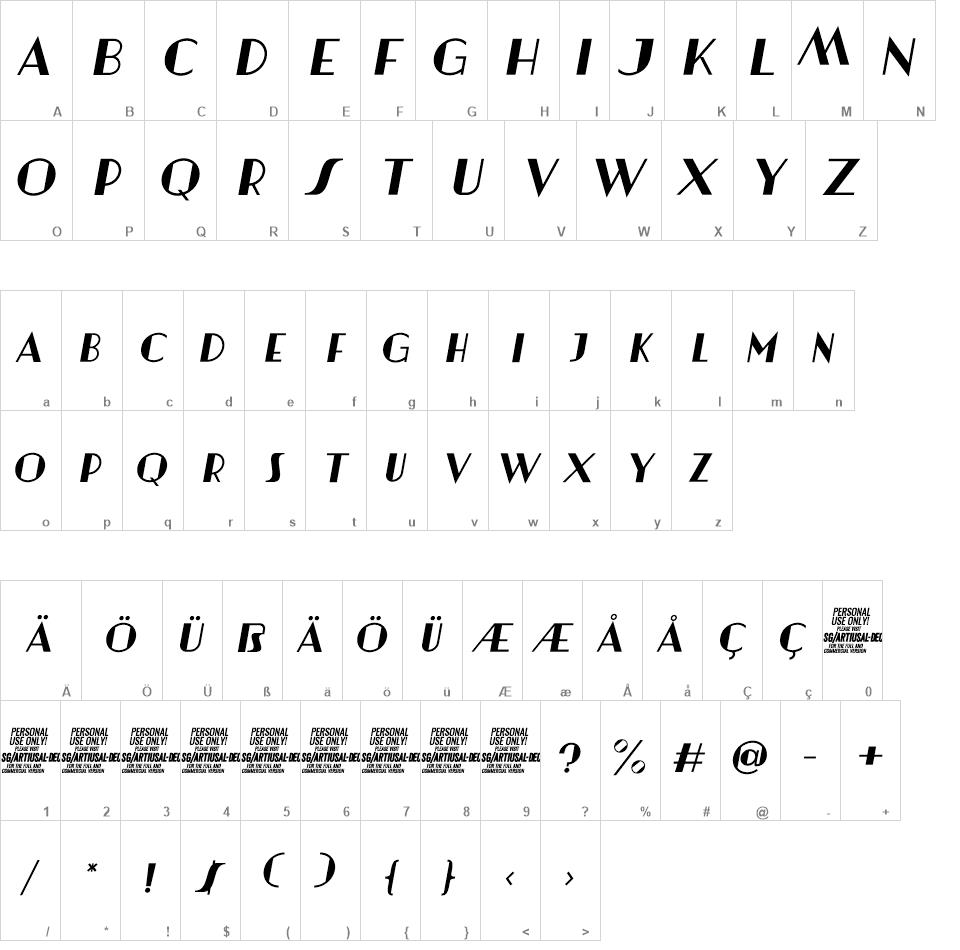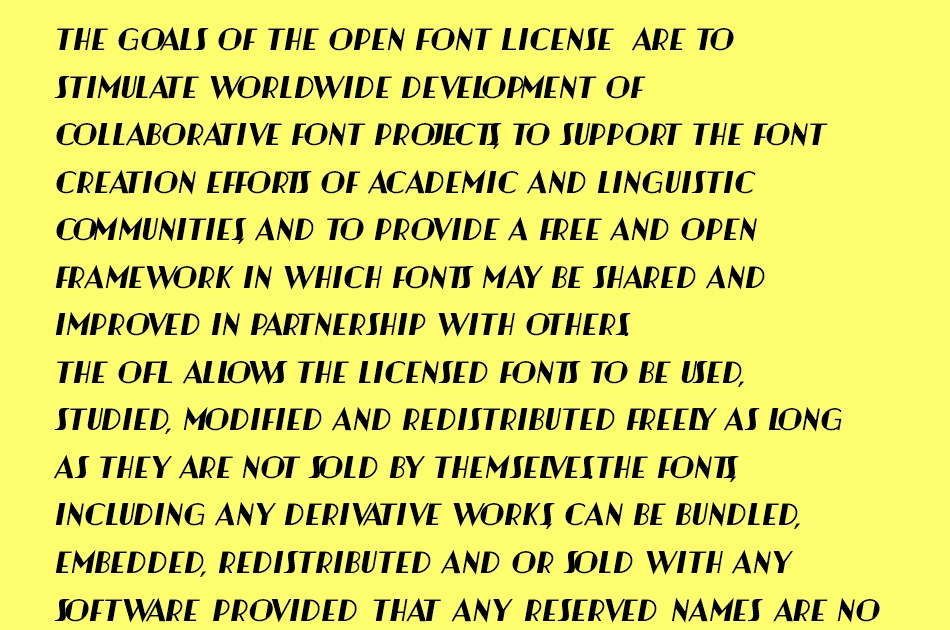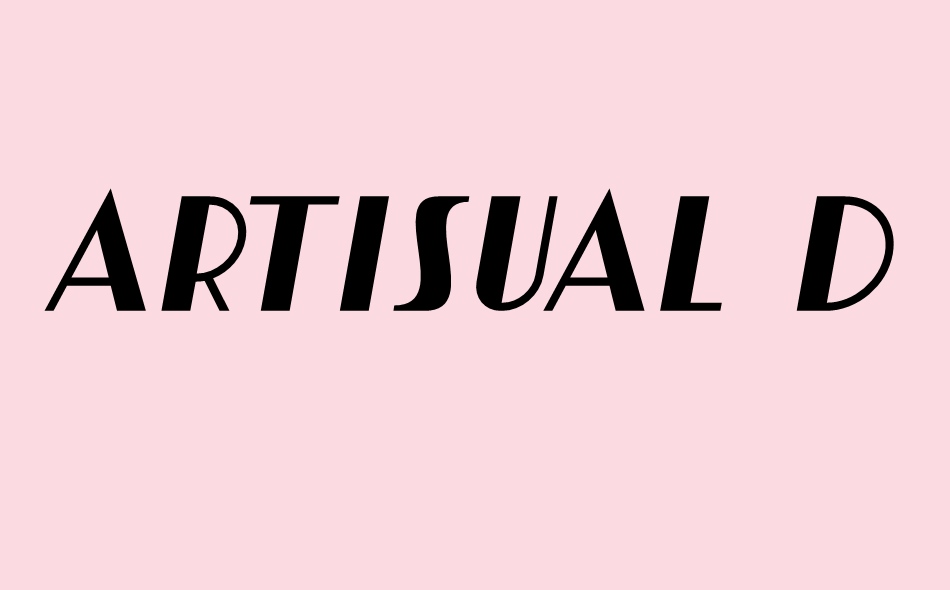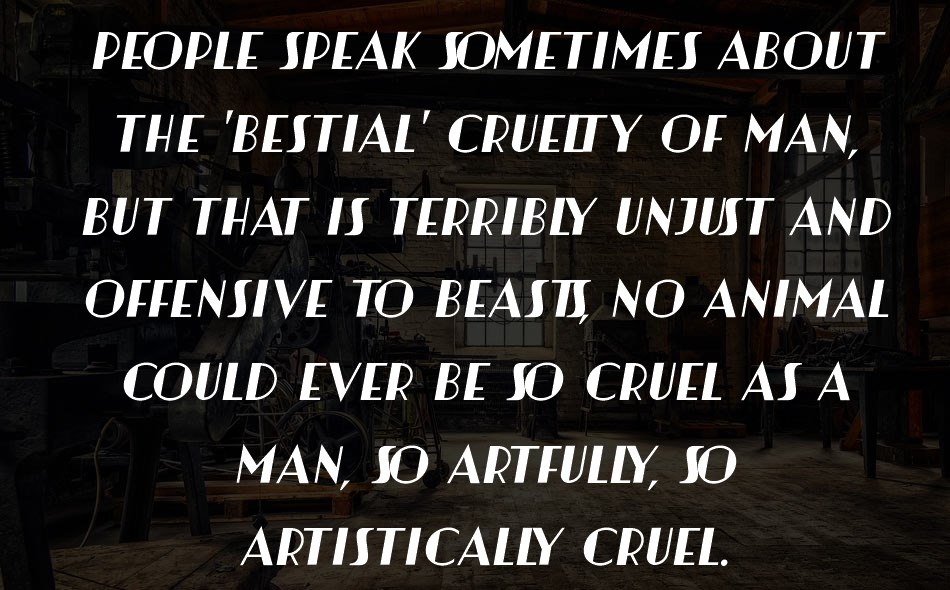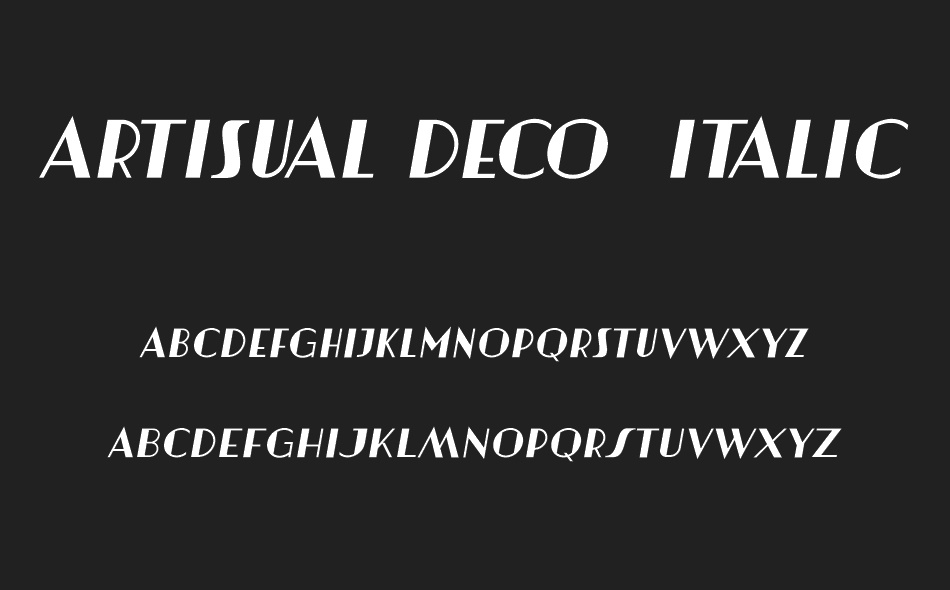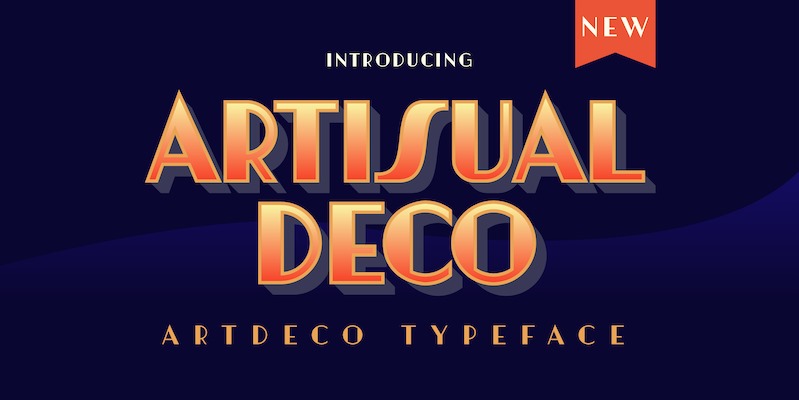
Artisual Deco font
Inspired by 1920's Art Deco, Artisual Deco is a 2020's celebration dedicated to the hundred-year-old history of geometric design. This retro typeface will be the perfect fit for your logo designs or graphic project.
Drawn, created and published in 2021, the typeface has vintage letterforms with a classy personality.
Artisual Deco contains ten high-quality styles: Thin, Light, Regular, Bold and Black with each weight provided as Upright and Italic.
It has extensive lingual support, covering all Latin-based languages, from North Europa to South Africa, from America to South-East Asia. It contains all characters and symbols you'll ever need, including all punctuation and numbers.